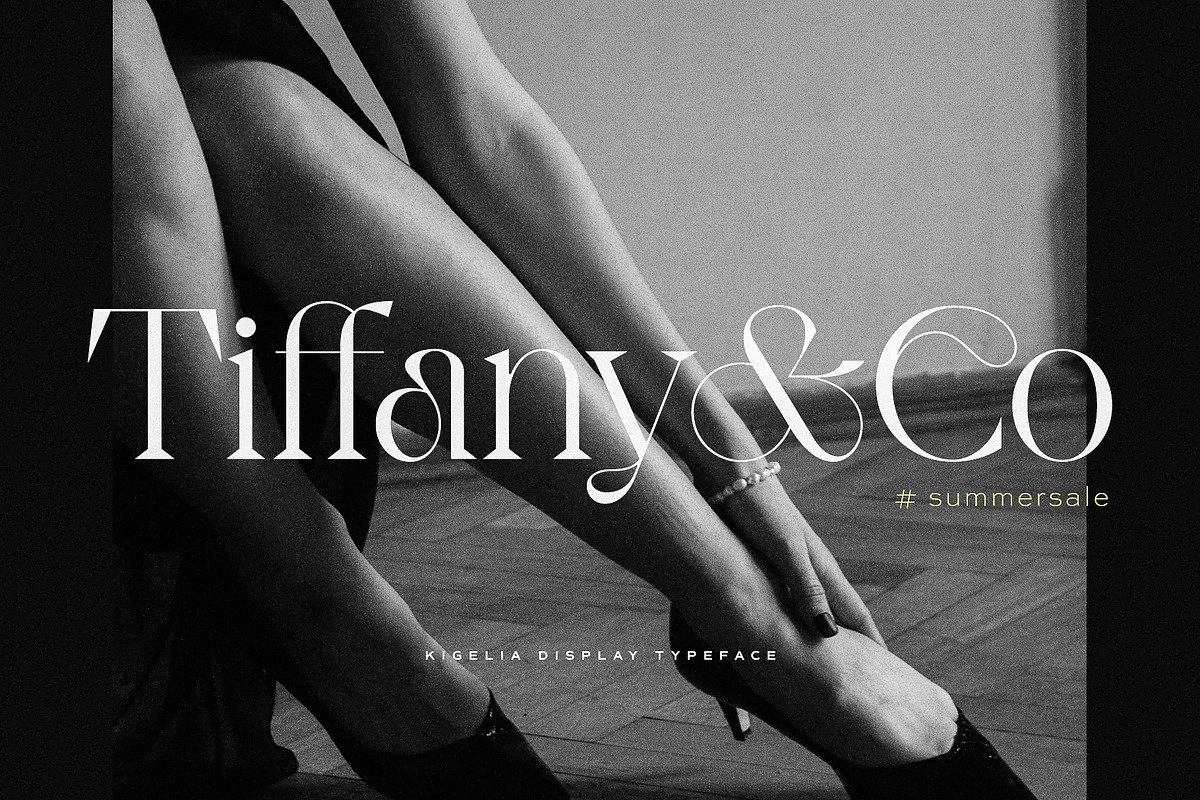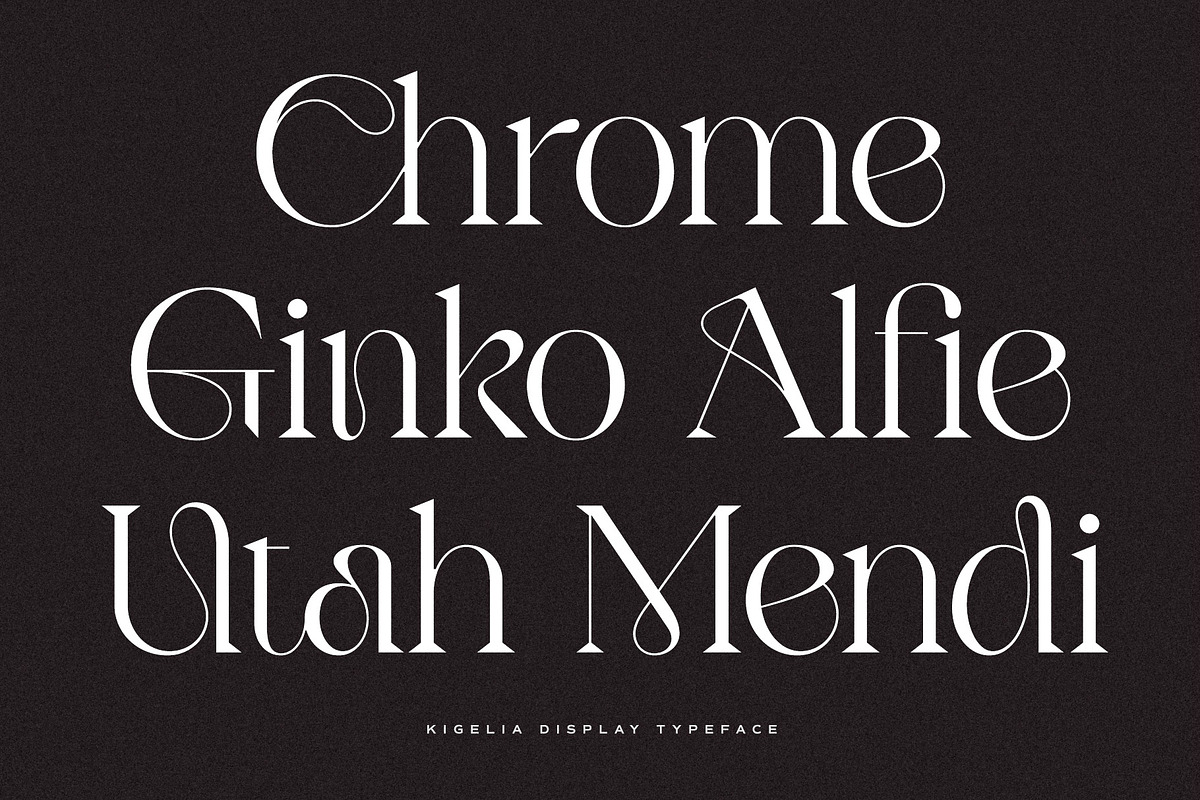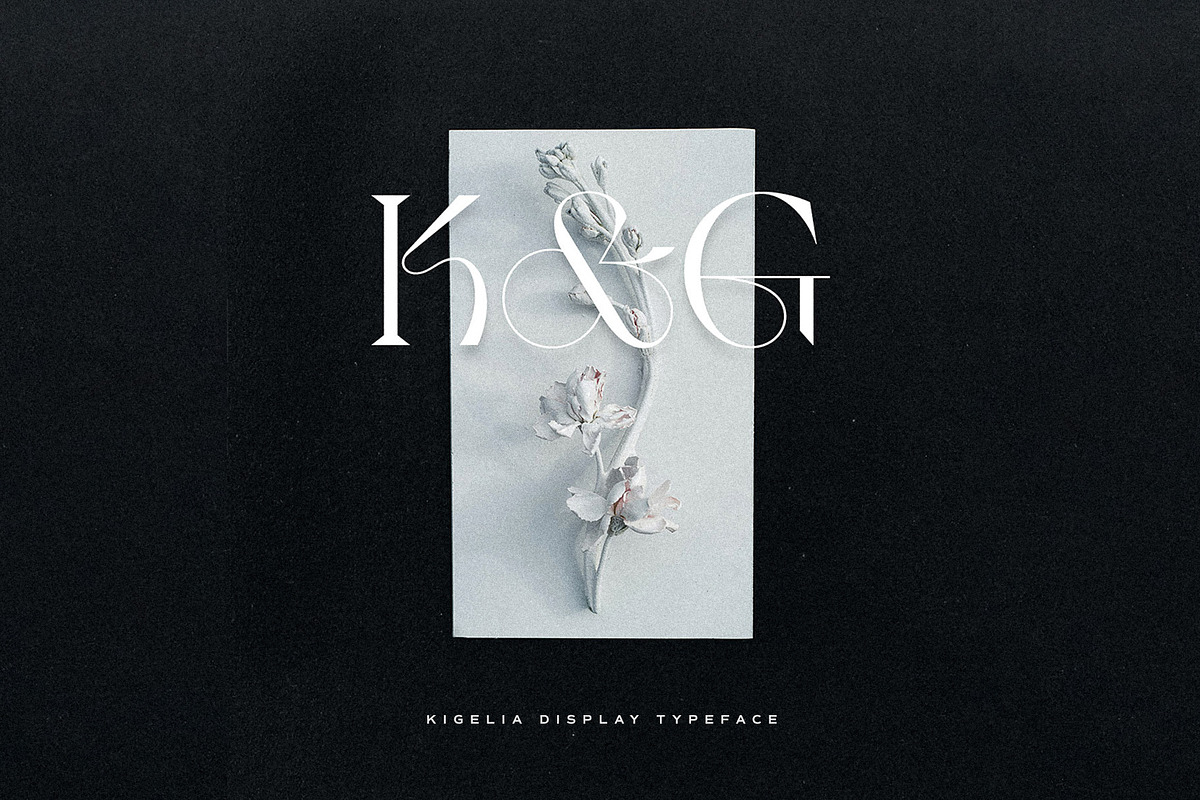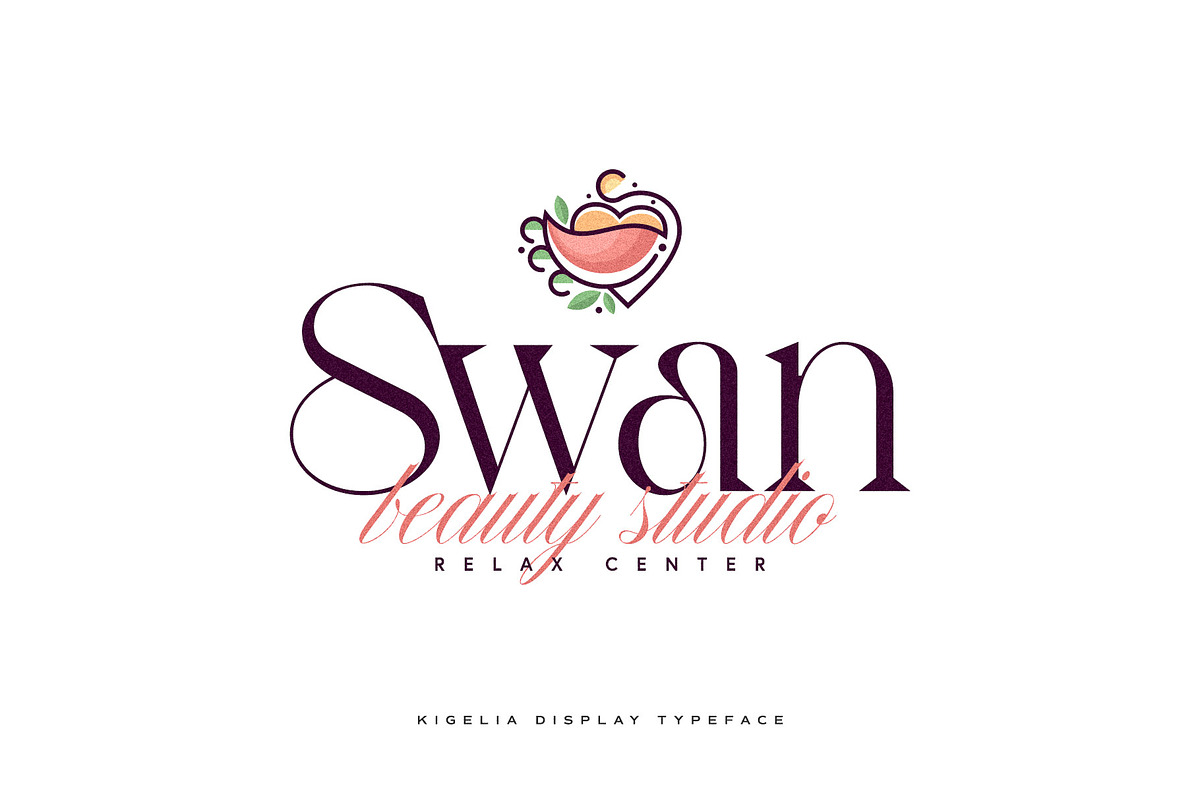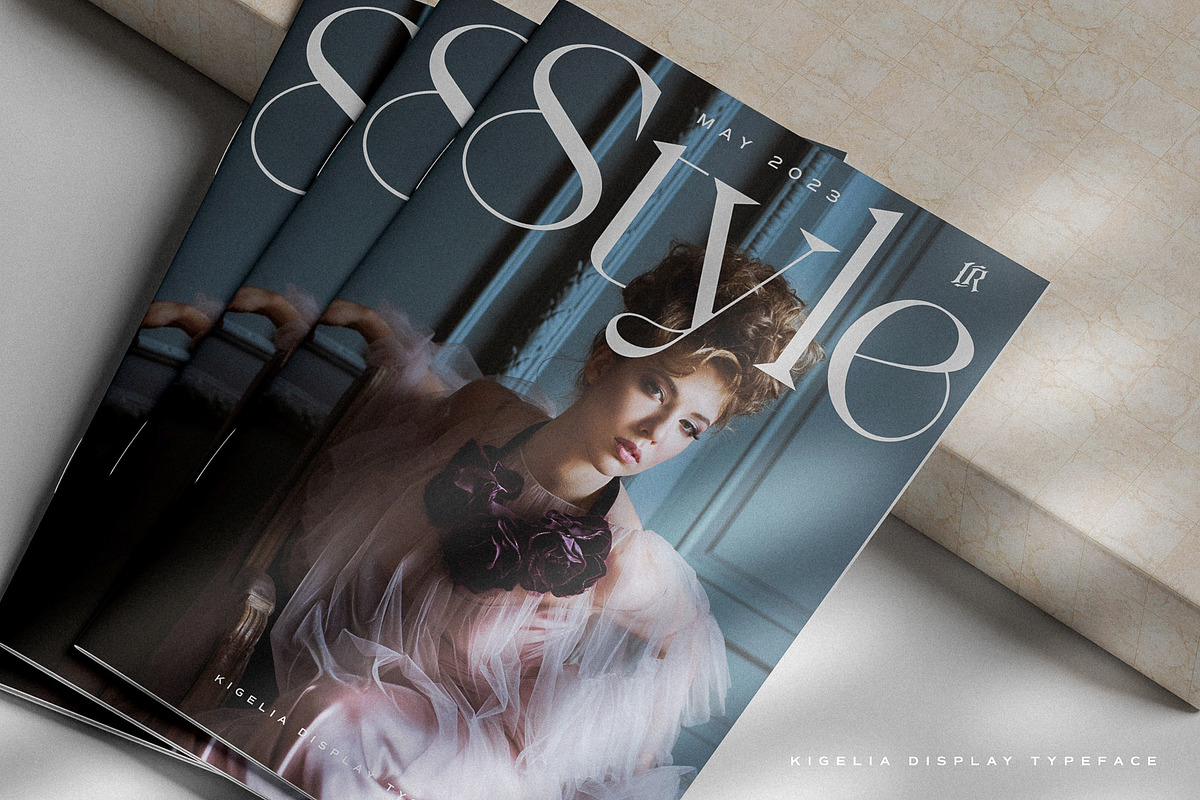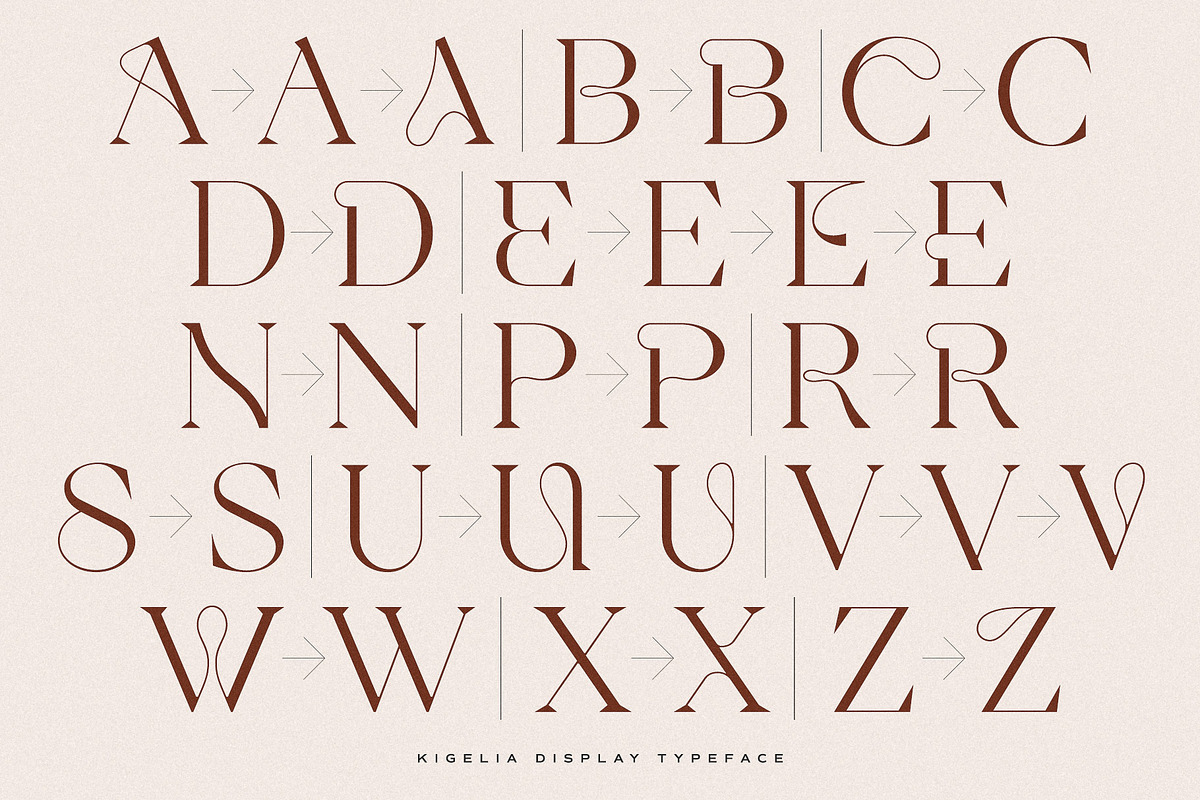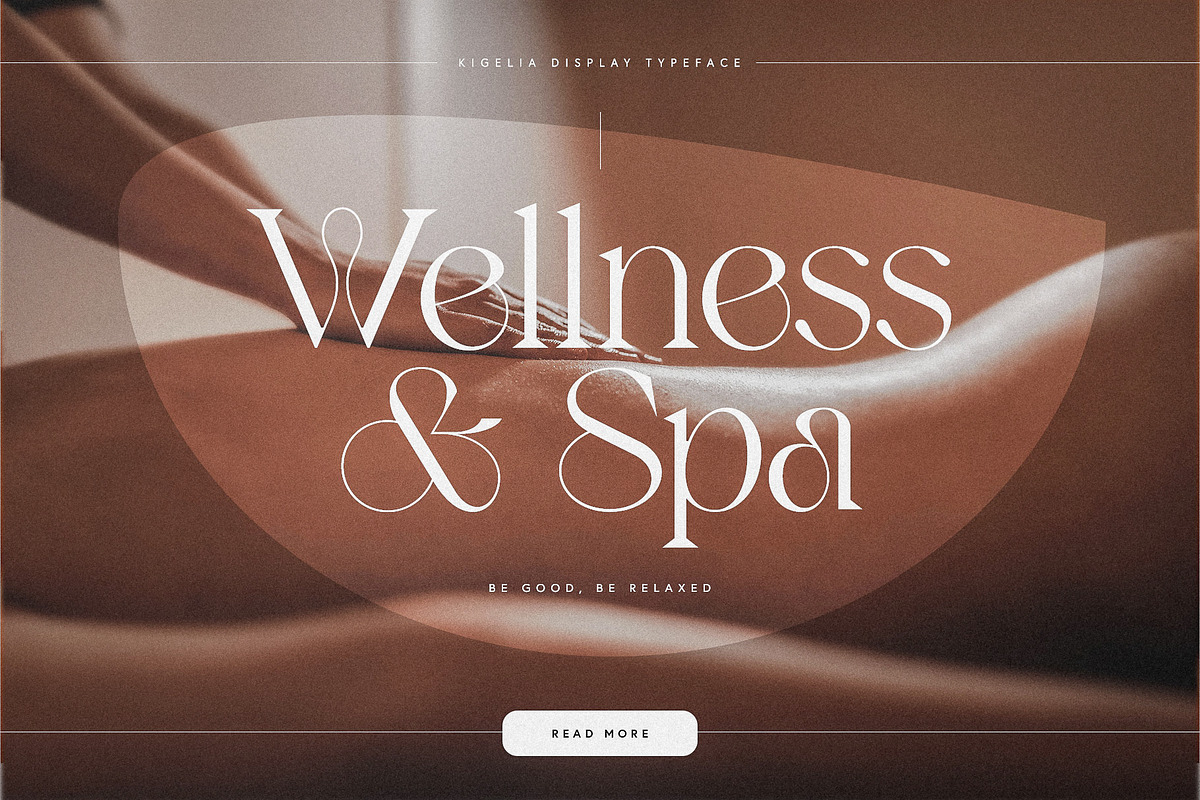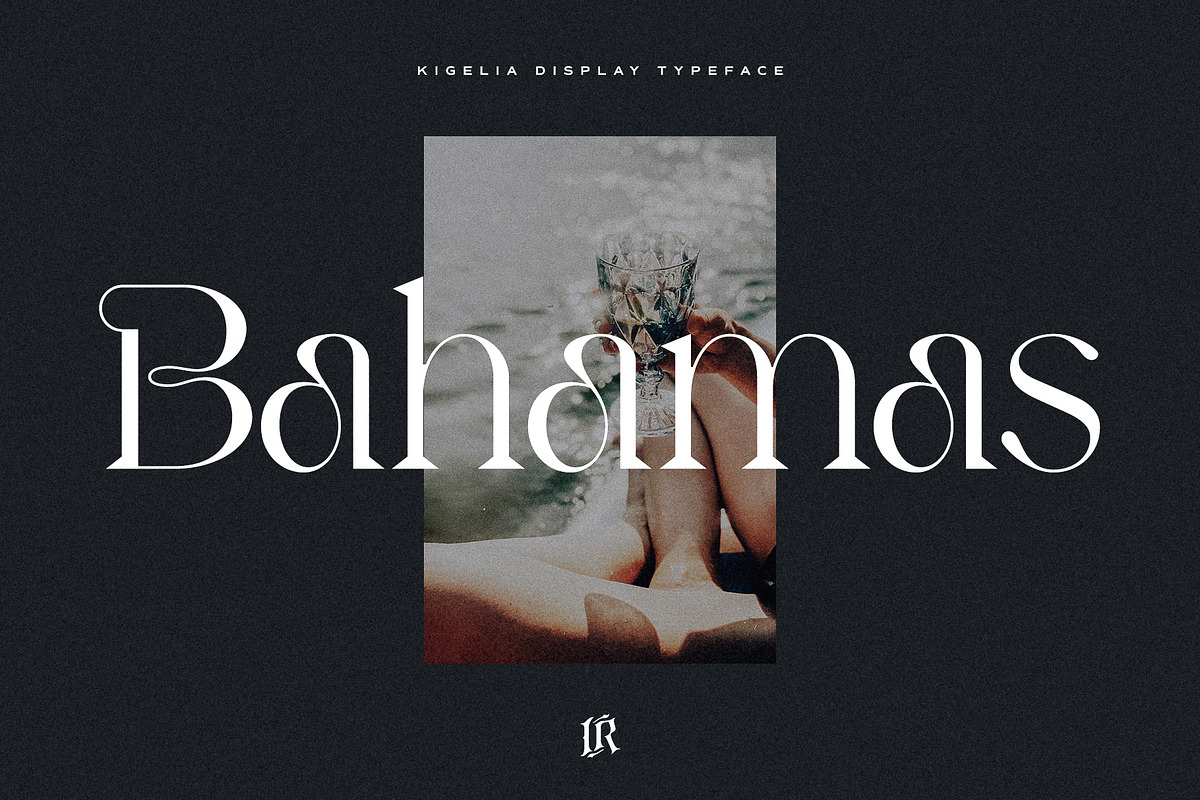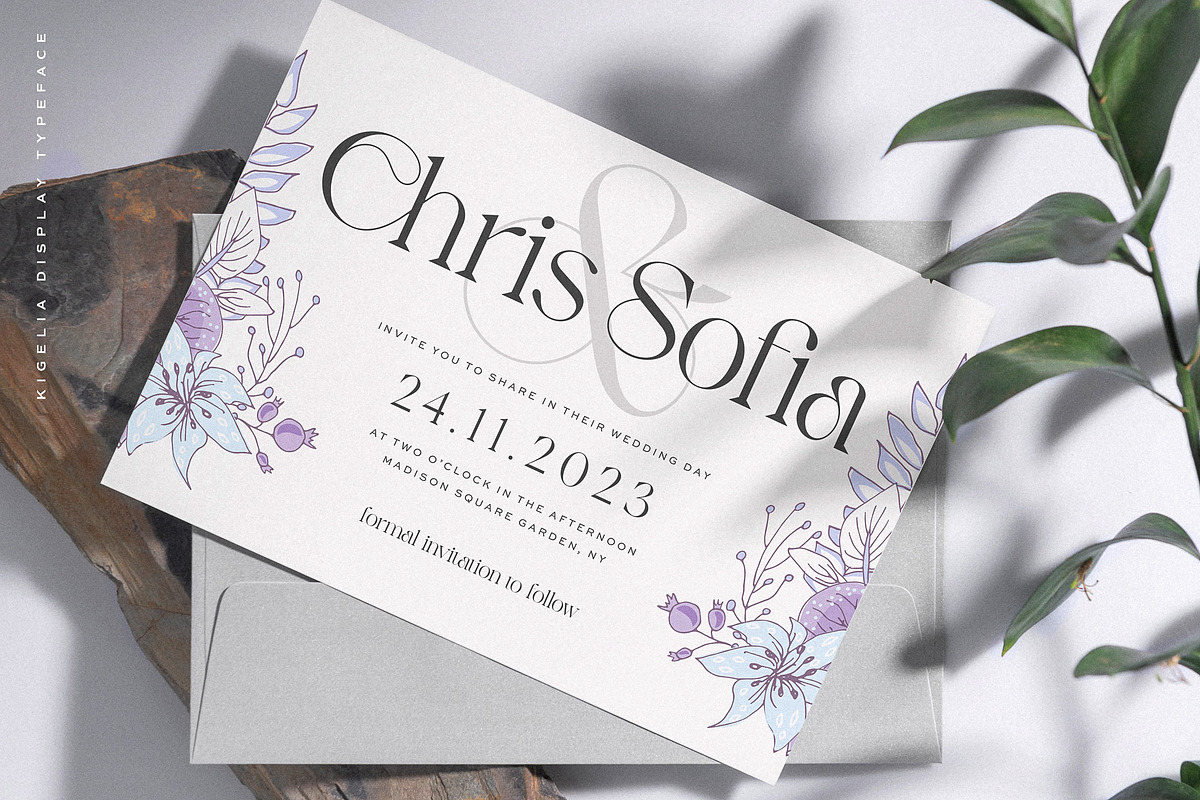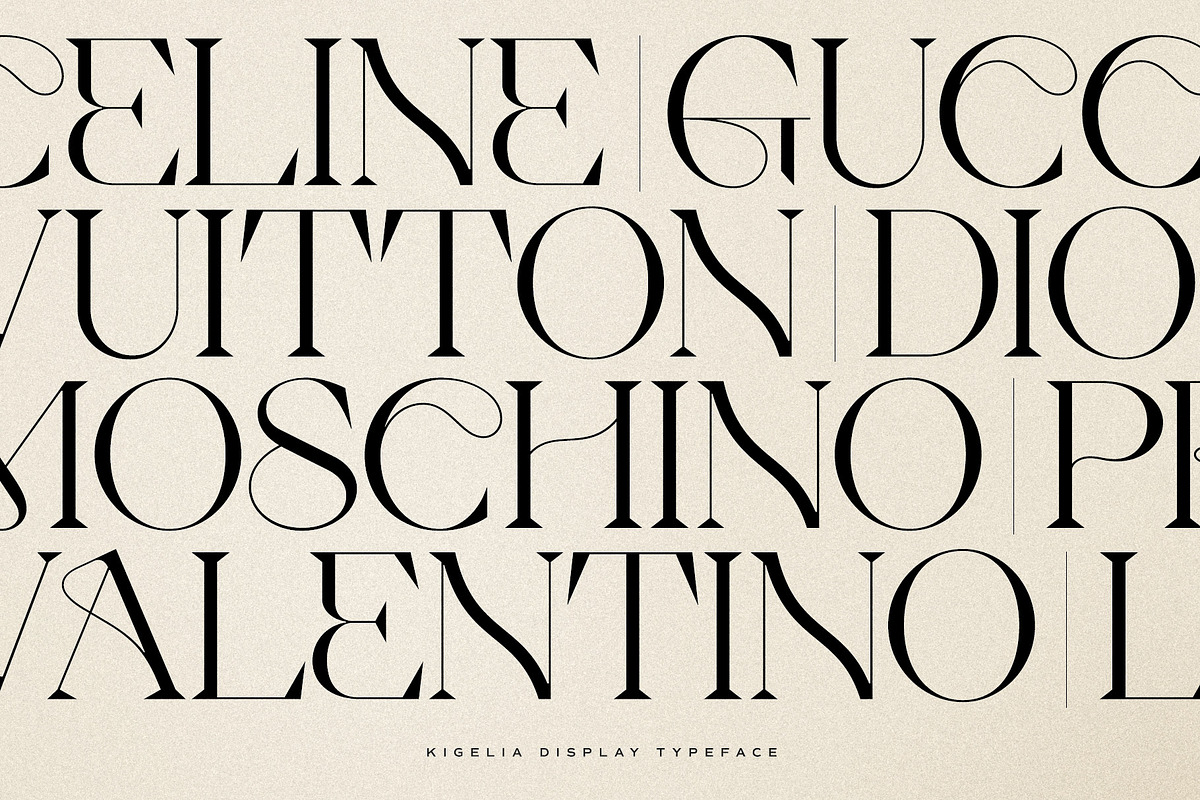
Kigelio | Display Serif
KIGELIO is a stylish display serif font inspired by fashion magazines and romance.
It is great for short headlines and titles, but it looks great in advertising, vintage mood board, branding, logotypes, packaging, titles, editorial design and modern and vintage design.